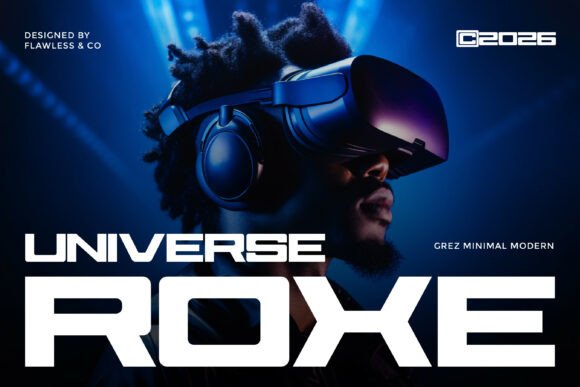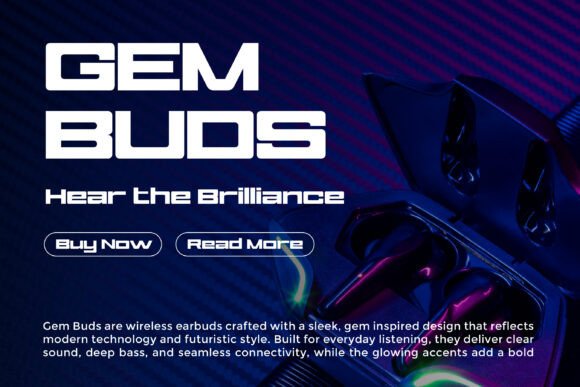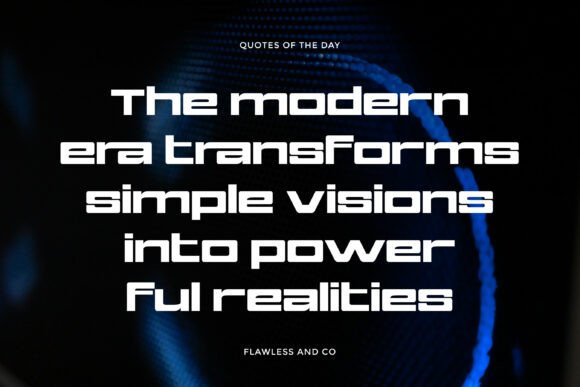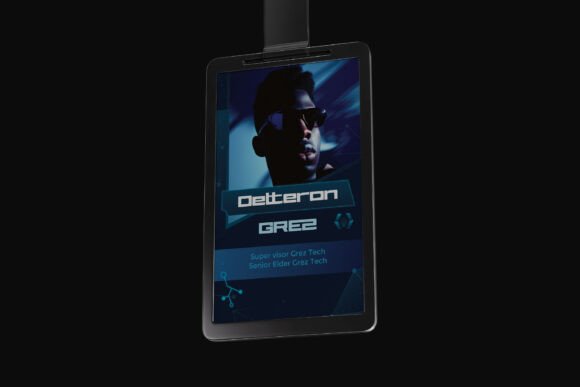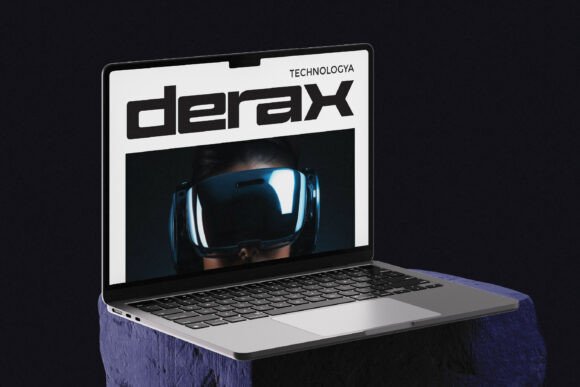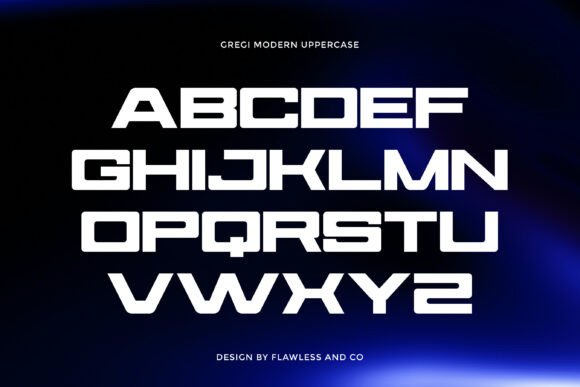
Unlocking the Power of Typography: Introducing Grez Font
You’ve been staring at your screen for hours, trying to find the perfect font to convey your message. But, just like a blank canvas, the right font can make all the difference. The moment of truth arrives when you finally find that one font that speaks to you, and for designers, that moment is often a game-changer.
Enter Grez Font, a bold and modern sans font designed to make a statement. Built with clean lines and solid proportions, Grez delivers a sharp and confident look that feels powerful and assertive. This font is perfect for designers who want to create a clear and direct visual presence that demands attention.
With Grez Font, designers can create a strong and impactful visual identity that stands out from the crowd. Its bold structure creates a clear statement, making every word appear strong, direct, and impossible to ignore. Whether you’re designing a logo, heading, or body text, Grez Font is the perfect choice for designers who want to make a lasting impression.
Grez Font Key Features
- Font Family: Grez is a sans-serif font family designed for digital use. It comes in multiple weights, from Light to Extra Bold.
- Character Set: Supports a wide range of languages, including Latin, Cyrillic, and Greek scripts, making it suitable for global branding and publishing.
- Resolution and Size: Optimized for high-resolution displays, suitable for use at sizes ranging from 10px to 48px, and scalable to larger sizes without losing readability.
- Unique Characteristics: Features a distinctive geometric shape with rounded corners, giving it a modern and friendly feel, while maintaining clarity and legibility at small sizes.
Grez Font Review
Grez Font is a unique, modern sans-serif typeface that has its strengths and weaknesses. Here’s what I think:
Grez Font is highly legible, even at small font sizes, making it perfect for digital applications like mobile apps and websites.
Its modern aesthetic gives it a sleek, contemporary feel that’s perfect for branding and marketing materials.
The font’s subtle variations in weight and style make it versatile and easy to use in a variety of contexts.
The font’s lack of distinctiveness makes it less memorable than some other typefaces.
Some users may find the font’s spacing and kerning to be a bit inconsistent, which can affect readability.
The font’s limited language support may be a concern for designers working on multilingual projects.
Grez Font is a solid, dependable typeface that’s well-suited for a wide range of applications. While it may not stand out from the crowd, it’s a reliable choice that’s easy to use and effective in its simplicity. With a bit more attention to detail and a broader language support, Grez Font could be an even more valuable addition to any designer’s toolkit.
To get the most out of Grez Font, use it for:
- Headings and titles for a modern and elegant look.
- Body text for a clean and readable format.
- Branding and logos for a unique and distinctive style.
Alternatives to Grez Font for Designers
Monserrate is a sans-serif font designed for digital media, ideal for use in modern and minimalist designs. It features clean lines, geometric shapes, and a wide range of weights. Montserrat is perfect for creating visually appealing titles, headings, and body text.
Montserrat is similar to Grez Font in its modern and clean design aesthetic, but it has a more geometric feel and a wider range of weights.
Abril Fatface is an elegant, high-contrast serif font designed for use in luxury branding, advertising, and editorial content. It features ornate details and a classic feel, making it ideal for creating sophisticated and stylish designs.
Abril Fatface differs from Grez Font in its serif design and more ornate details, making it suitable for use in high-end branding and advertising.
Playfair Display is a luxurious, high-contrast serif font designed for use in premium branding, advertising, and editorial content. It features elegant lines, ornate details, and a classic feel, making it ideal for creating sophisticated and stylish designs.